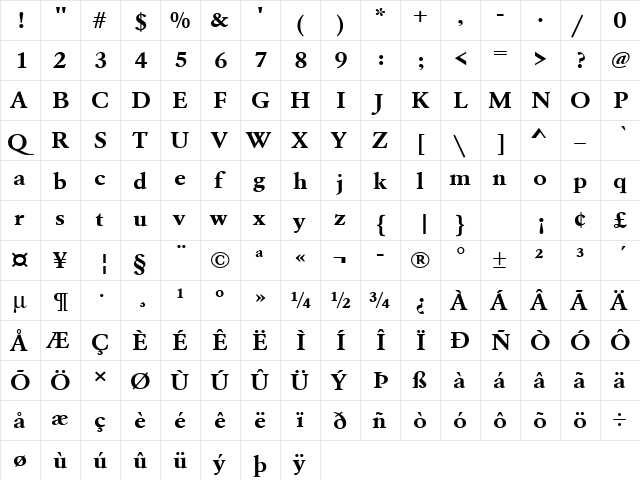
URWGaramondTExtWid Bold
Design Context for URWGaramondTExtWid Typeface
URWGaramondTExtWid takes a measured approach to typography — its balanced proportions and neutral character make it a reliable workhorse for both digital and print work. Its bold stroke weight gives it real presence on the page.